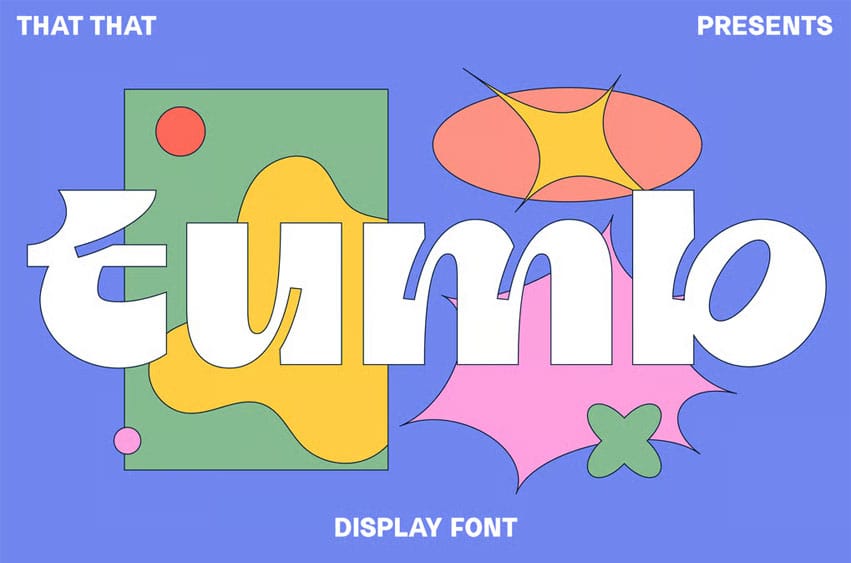
Tumb Ink Trap logo Font is a modern quirky display sans serif type that is super bold and perfect for headlines. it is playful and fun.
It is perfect for posters, Instagram, magazines, print, branding, logos , and whatever you can imagine. That That is super proud of this one.